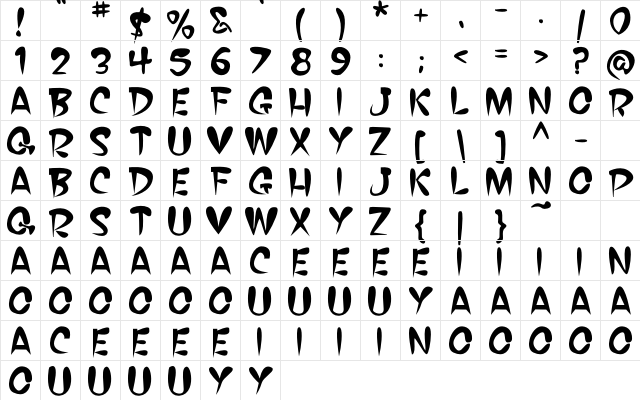
BOOZ BOOM Regular
| Designer | Doni Dorra |
Design Context for BOOZ BOOM Typeface
BOOZ BOOM is a composed and adaptable typeface that performs quietly and consistently across a wide range of design contexts.
Pro Tip: Use BOOZ BOOM in both headline and body roles to test its range before committing to a single application.